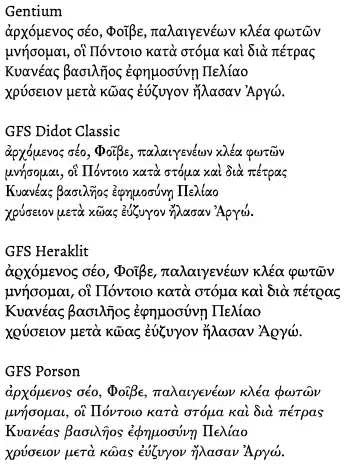
There are quite a lot of fonts available for writing Latin, which have been designed for easy legibility and contain all the letters of the Latin alphabet.
For the Greek alphabet, however, most modern fonts are designed for modern (monotonic) Greek, and thus aren't designed to make (e.g.) ἔ and ἕ easily distinguishable. Most of the time, I need to zoom in quite far to see the distinction between those two, which is annoying while reading or translating.
So, what are some popular fonts designed specifically for polytonic Greek? My eyes would appreciate anything with easier-to-read breathing marks.
I've long relied on the free Gentium typeface, which has a simply gorgeous, highly readable polytonic Greek font, with diacriticals that I've always found quite easy to distinguish, both on the printed page and on the computer screen. I used to have a custom stylesheet to display all Greek text on the Perseus website in Gentium, because it's much easier on my eyes.
You should also check out the site of the Greek Font Society, which offers some very fine recreations/digitizations of historically significant polytonic Greek fonts, also available for free download. Some of GFS's faces don't even have Latin fonts; their focus really is on high-quality Greek typography, though some of the faces are more appropriate than others for regular running text. The diacriticals in the GFS Didot Classic face, in particular, are extremely pronounced and clear – almost too clear, if that's possible. Their GFS Heraklit face, after an original by Hermann Zapf, is also very nice, with quite distinct diacriticals.
Update: As requested, here are examples of the 3 faces that I mentioned (plus a fourth, GFS Porson). In the document that I captured the image from, the text for all 4 examples was set at 11 points with line spacing set at 14 points.
Opening lines of the Argonautica in 4 Greek fonts
The clarity of Didot with its low x-height, is unmatched by the others. Maybe that is a key thing to look for? Fonts with a lower x-height? A low x-height allows more room for the diacritics to breathe, so to speak. – Canned Man Dec 07 '22 at 12:51
@CannedMan, The x-height certainly has something to do with it, as does the somewhat exaggerated size of the diacriticals. Over all, what makes the Didot such an effective face is that the letters have been designed so that each is so utterly unique. Even at a distance a sigma and an alpha are distinct. I greatly admire Zapf, but because the counters of the rho, omicron, sigma, and even the alpha, are basically the same, the letters can lose distinctiveness at even a bit of distance. The only issue I have with the Didot face is that the letter spacing always feels a litte cramped to me. – cnread Dec 10 '22 at 02:11
• That is a very informative comment (I would advise adding much of that to your answer). Does Didot come in both display and text optical sizes? Also, I can agree that your sample does indeed look a bit cramped (and it is a bad font selection for printing on low-quality paper; I would expect a lot of bleeding, especially with e.g. ντ, ε, νε, possibly ημ), but there are two options to solve this: If not writing an academic text with strict restrictions, one could strongly argue for simply increasing font size; if restrictions are strict, another option would be to slightly increase kerning. – Canned Man Dec 10 '22 at 23:31